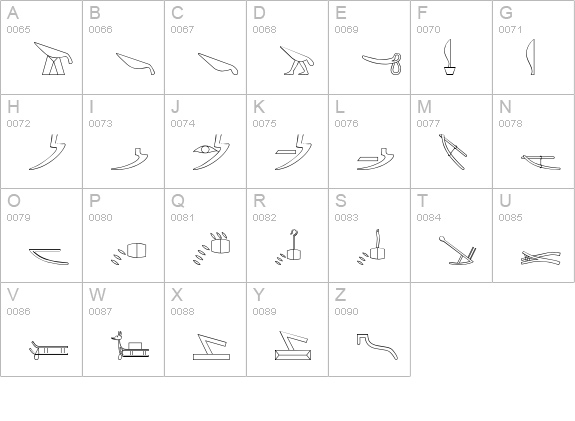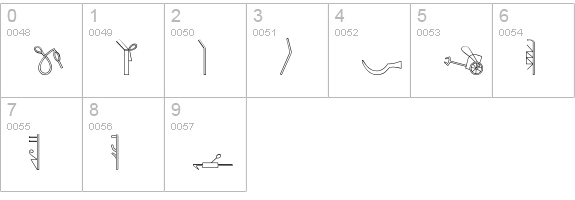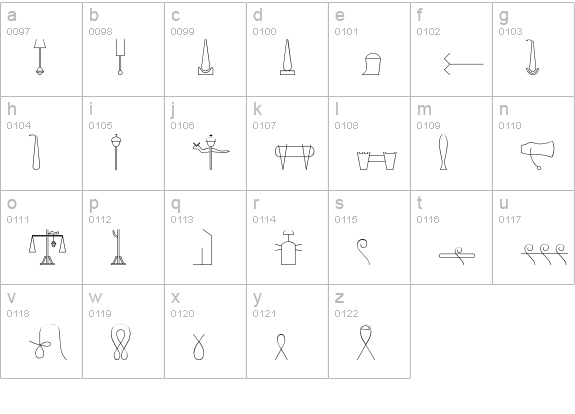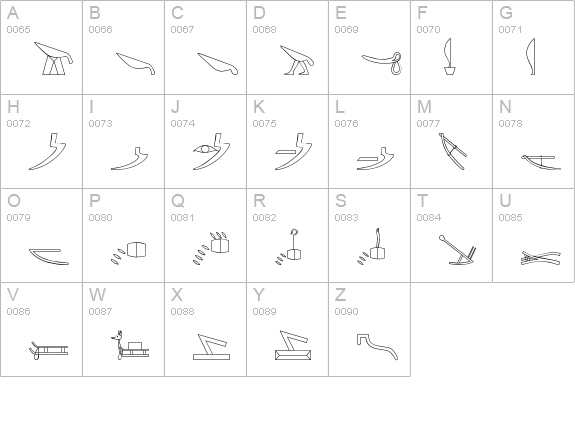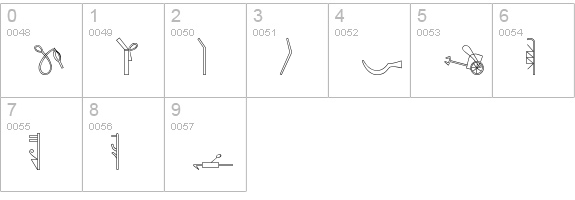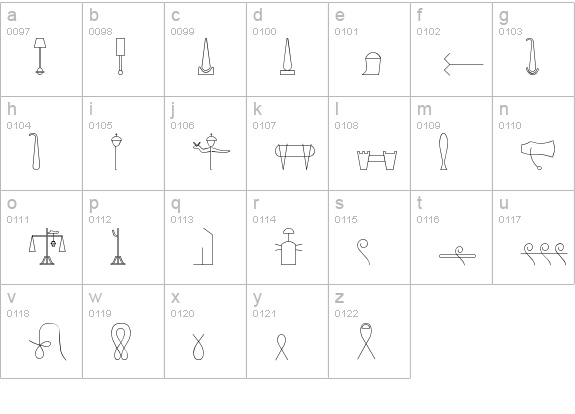
GlyphBasic D Font Details
GlyphBasic D is a modern and versatile font that combines sleek lines with a touch of elegance. Its clean and minimalist design makes it perfect for a wide range of projects, from branding to editorial design. The font features a unique blend of sharp angles and gentle curves, giving it a distinctive and eye-catching look. What sets GlyphBasic D apart is not only its aesthetic appeal but also its accessibility. This font is available for free download at FontsMarket.com, making it easy for designers and creatives to incorporate it into their work without any cost. Whether you're working on a digital project or a print design, GlyphBasic D is sure to elevate your work with its contemporary style and effortless sophistication. Download this font today and start creating stunning visuals that stand out from the crowd.